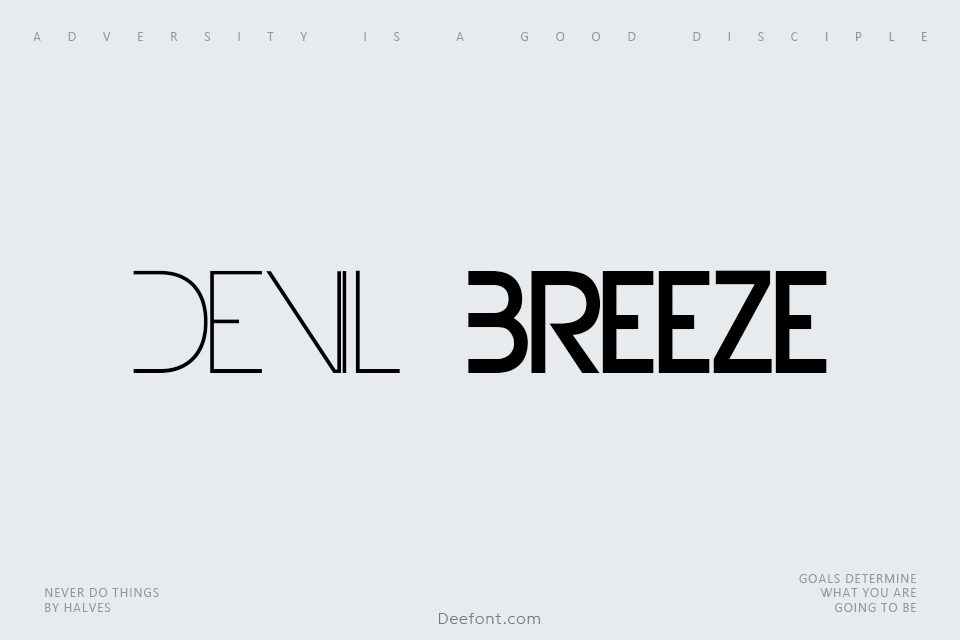
Devil Breeze Font
Devil Breeze is a versatile sans serif font family inspired by the Avant Garde typeface. Created by WesLo Fonts, it combines a modern geometric structure with smooth letterforms, making it ideal for impactful headlines, modern design projects, and expressive branding. Its clean and stylish lines ensure excellent readability while adding a touch of creative flair for posters, logos, or editorial layouts. Devil Breeze offers multiple weights, allowing designers to adapt it seamlessly to different creative needs.